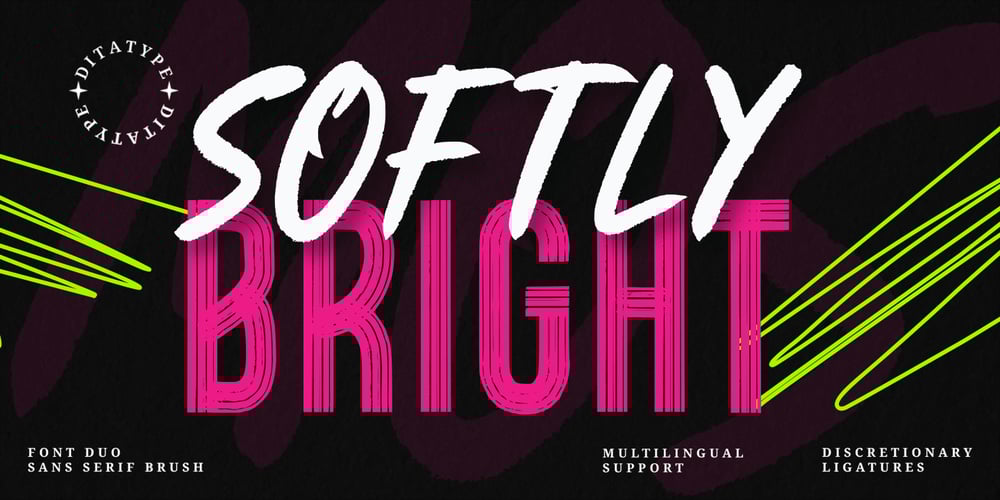
Softly Bright
Softly Bright font
Softly Bright Font Family was designed by Donis Miftahudin and published by Ditatype. Softly Bright contains 2 styles and family package options. Introducing Softly Bright, a dynamic font duo that effortlessly combines the contrasting styles of sans-serif and brush fonts. The sans-serif component of this font is a testament to clean lines and modern minimalism. Its characters are created with precision and defined strokes, offering a sharp and sleek appearance that exudes professionalism and readability. On the other hand, the brush font in Softly Bright adds an expressive touch to your designs. It embodies the authenticity of hand-lettered strokes, with each character bearing the organic irregularities of brushwork. This brush font retains the proportions of the sans-serif, ensuring that the two styles harmoniously coexist. Softly Bright fits in headlines, logos, posters, flyers, branding materials, print media, editorial layouts, and many more designs. Find out more ways to use this font by taking a look at the font preview.